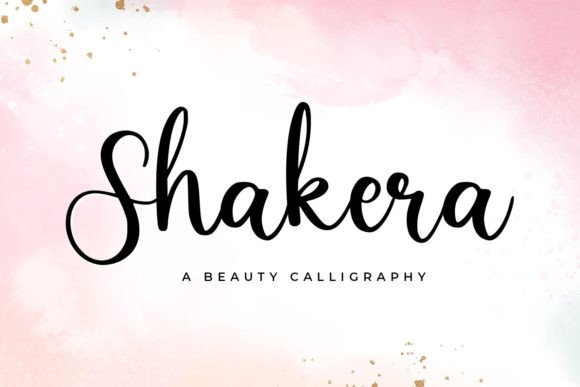
Step into the world of elegance and grace with Shakera Font, the enchanting script font that will captivate your senses. Each letter, meticulously crafted, flows seamlessly with delicate swashes, adding a touch of playfulness and charm to your designs. Experience the joy of creating personalized handwritten messages or adding a touch of sophistication to your projects. With Shakera Font, the possibilities are endless.
Imagination knows no bounds with Shakera Font. Dive into a realm of creativity and let your artistic vision soar. Design eye-catching letterheads that exude professionalism and personality, or craft stunning titles that draw attention from afar. Shakera Font's versatility knows no limits; it seamlessly adapts to your crafting endeavors, transforming ordinary projects into masterpieces.
Envision wedding invitations adorned with Shakera Font's elegant strokes, conveying the love and joy of the occasion. Design stationery that reflects your unique style, adding a personal touch to every note and letter. Unleash your creativity and let Shakera Font elevate your crafting projects to new heights.
With Shakera Font by Abodaniel, you possess the power to create captivating designs that speak volumes. Embrace the beauty of handwritten elegance and experience the joy of crafting with Shakera Font. Its delicate swashes and refined curves will leave a lasting impression, making your designs truly unforgettable. Engage your audience with messages that resonate, leaving them inspired and captivated.